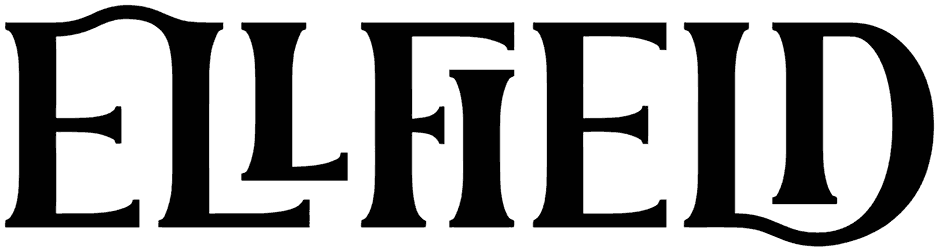
Ellfield Font
Ellfield is a reliable and risk-taking serif font. Although it doesn’t include any lowercase characters, it’s still a fantastic choice if you want to make your audience feel calm and confident.
Get this ligature font today and use it in projects that need an elegant visual presence, such as magazines, fashion spreads, decorative items, headlines, and more. Choose a few more dazzling fonts from our extensive collection to use in conjunction with this one.